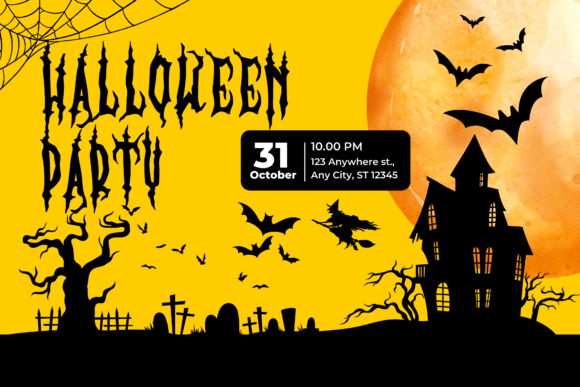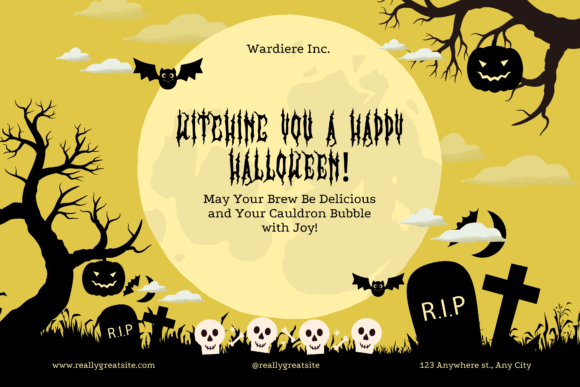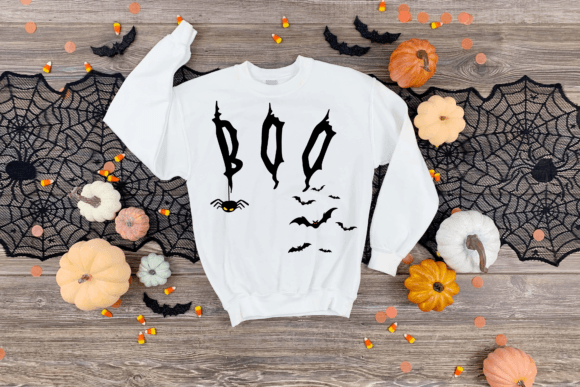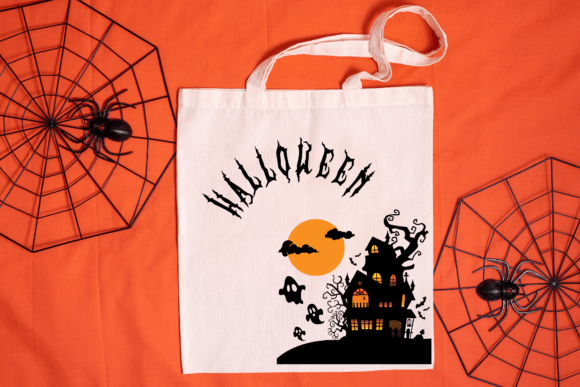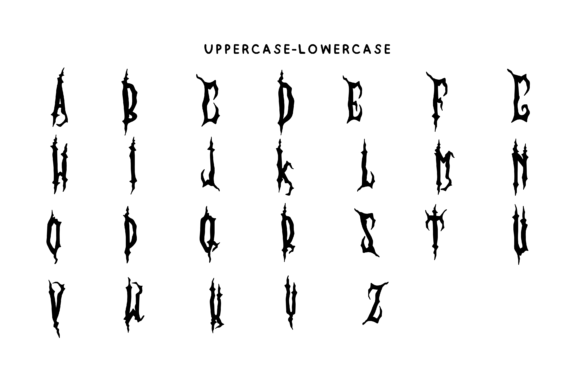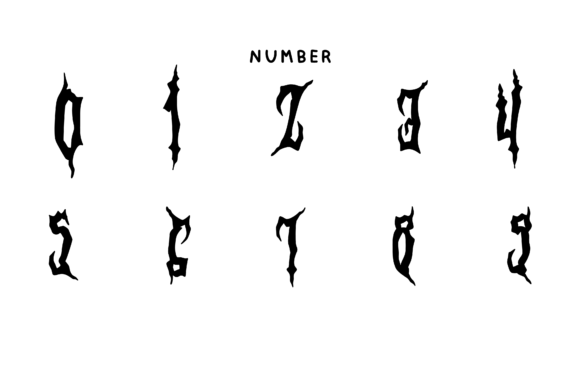
Cemetery Font: A Whimsical Handwritten Decorative Font for Creative Projects
Are you a designer, crafter, or DIY enthusiast looking for a unique and versatile font to add a personal touch to your projects? Look no further than Cemetery Font, a beautiful handwritten decorative font that’s perfect for a wide range of creative applications. In this article, we’ll explore the features and uses of Cemetery Font, and show you how to make the most of this amazing font in your designs.
What is Cemetery Font?
Cemetery Font is a handwritten decorative font that’s designed to add a touch of elegance and whimsy to your projects. With its flowing lines and intricate details, this font is perfect for creating beautiful and eye-catching designs that stand out from the crowd. Whether you’re making notes, writing a diary, or creating greeting cards, Cemetery Font is the perfect choice.
Features of Cemetery Font
So, what makes Cemetery Font so special? Here are just a few of its key features:
- Handwritten style: Cemetery Font has a beautiful, handwritten style that’s perfect for adding a personal touch to your projects.
- Decorative details: The font features intricate details and flourishes that add an extra layer of elegance to your designs.
- Versatile: Cemetery Font can be used for a wide range of projects, from notes and diaries to greeting cards, banners, and more.
Uses for Cemetery Font
So, what can you use Cemetery Font for? The possibilities are endless! Here are just a few ideas to get you started:
- Notes and journals: Use Cemetery Font to add a personal touch to your notes and journals.
- Greeting cards: Create beautiful and unique greeting cards for special occasions.
- Banners and signs: Use Cemetery Font to create eye-catching banners and signs for parties, events, and more.
- Social media posts: Add a touch of elegance to your social media posts with Cemetery Font.
- Mugs and water bottles: Create custom mugs and water bottles with Cemetery Font.
- Cards and invitations: Use Cemetery Font to create beautiful and unique cards and invitations.
- Shirts and apparel: Create custom shirts and apparel with Cemetery Font.
- Stationery and paper crafts: Use Cemetery Font to add a personal touch to your stationery and paper crafts.
Tips for Using Cemetery Font
Here are a few tips for using Cemetery Font in your designs:
- Experiment with sizes and colors: Try out different sizes and colors to see what works best for your project.
- Mix and match with other fonts: Combine Cemetery Font with other fonts to create a unique and eye-catching design.
- Use it sparingly: Use Cemetery Font sparingly to add a touch of elegance to your design, rather than overwhelming it.
- Have fun: Most importantly, have fun and be creative with Cemetery Font!
Cemetery Font is a beautiful and versatile handwritten decorative font that’s perfect for a wide range of creative projects. With its flowing lines and intricate details, this font is sure to add a touch of elegance and whimsy to your designs. Whether you’re a designer, crafter, or DIY enthusiast, Cemetery Font is a must-have font to add to your collection. So why wait? Download Cemetery Font today and start creating your own unique and eye-catching designs!